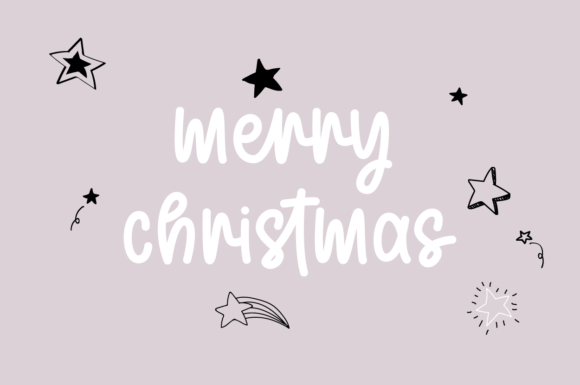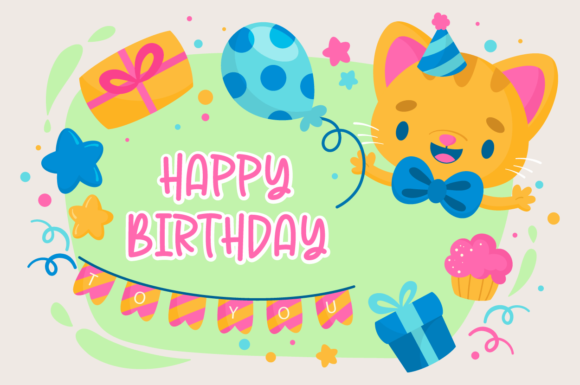
September Farmhouse Font
db-ku.com - Script & Handwritten -- September Farmhouse is an exquisite handwritten font, masterfully designed to become a true favorite. It maintains its classy calligraphic influences while feeling contemporary and fresh. September Farmhouse is PUA encoded which means you can access all of the glyphs and swashes with ease!